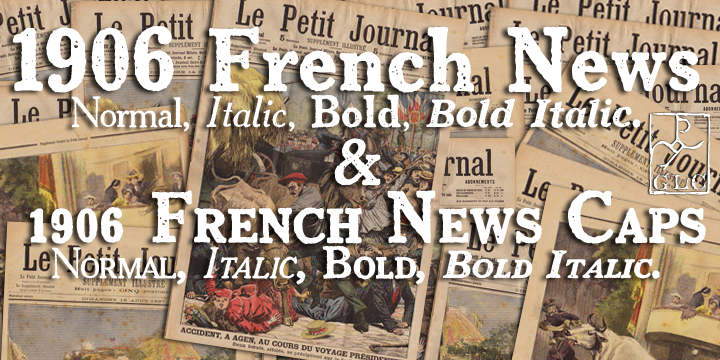
1906 French News Font Free Download is a vintage serif typeface inspired by early 20th-century French newspaper headlines and print design. Please note that you must purchase this font for commercial use. It is available for free download for personal and testing purposes only.
You can use 1906 French News Font in editorial layouts, historical projects, book covers, retro branding, poster designs, antique product packaging, or any piece that needs the charm of old-world European print. It’s perfect for adding authenticity and timeless flair to your typography.
What makes 1906 French News so exciting is its refined yet aged aesthetic — with slightly condensed characters, sharp serifs, and subtle imperfections, it feels like it came straight off a century-old printing press. It transports your viewer to a bygone era, filled with ink, texture, and character.
The 1906 French News Font family includes styles such as Regular, Italic, and Rough, allowing you to recreate the visual feel of aged newspaper ink and classic letterpress effects.
If you’re looking to bring heritage, depth, and vintage Parisian elegance into your work, 1906 French News Font Free Download is the perfect choice. Download it today and give your project a sophisticated typographic time machine.